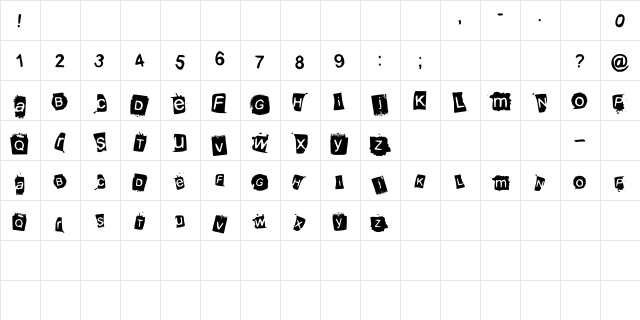
KrooKed Medium Font Preview
KrooKed Medium
KrooKed Medium Font Details
Design Context for KrooKed Typeface
KrooKed is a composed and adaptable typeface that performs quietly and consistently across a wide range of design contexts.
Pro Tip: Use KrooKed in both headline and body roles to test its range before committing to a single application.